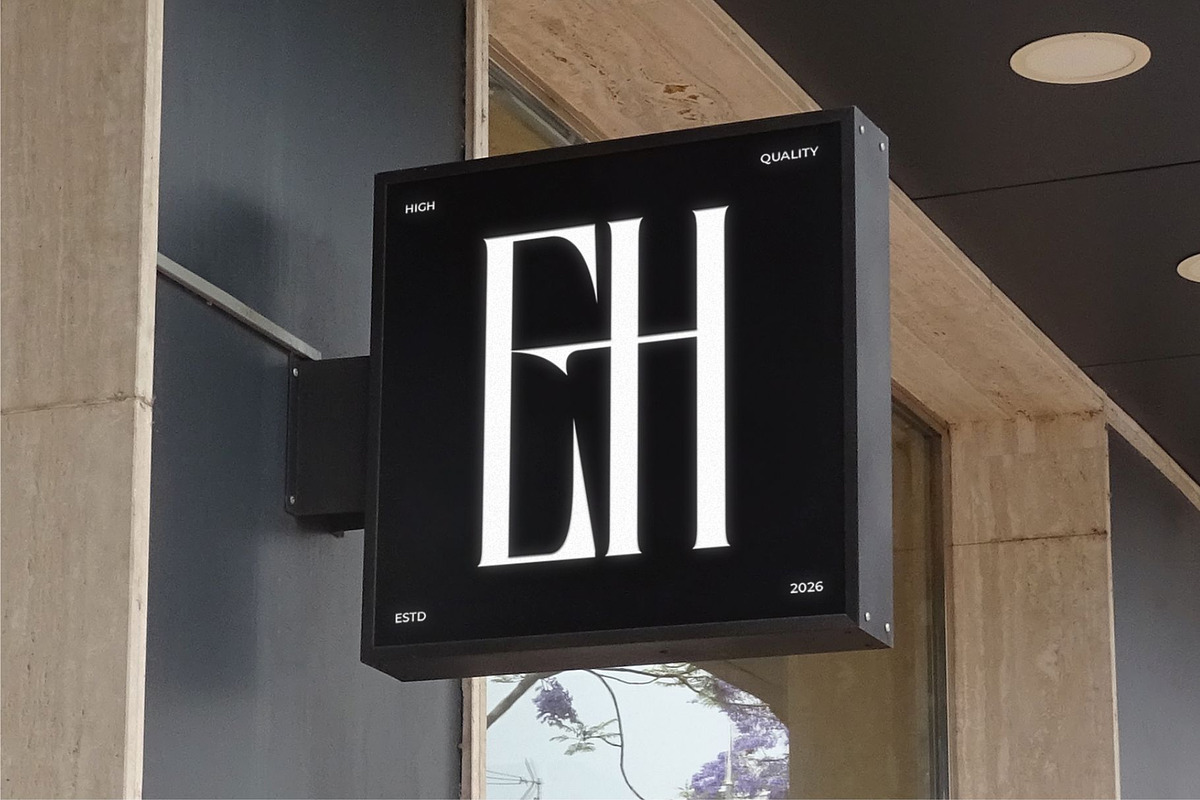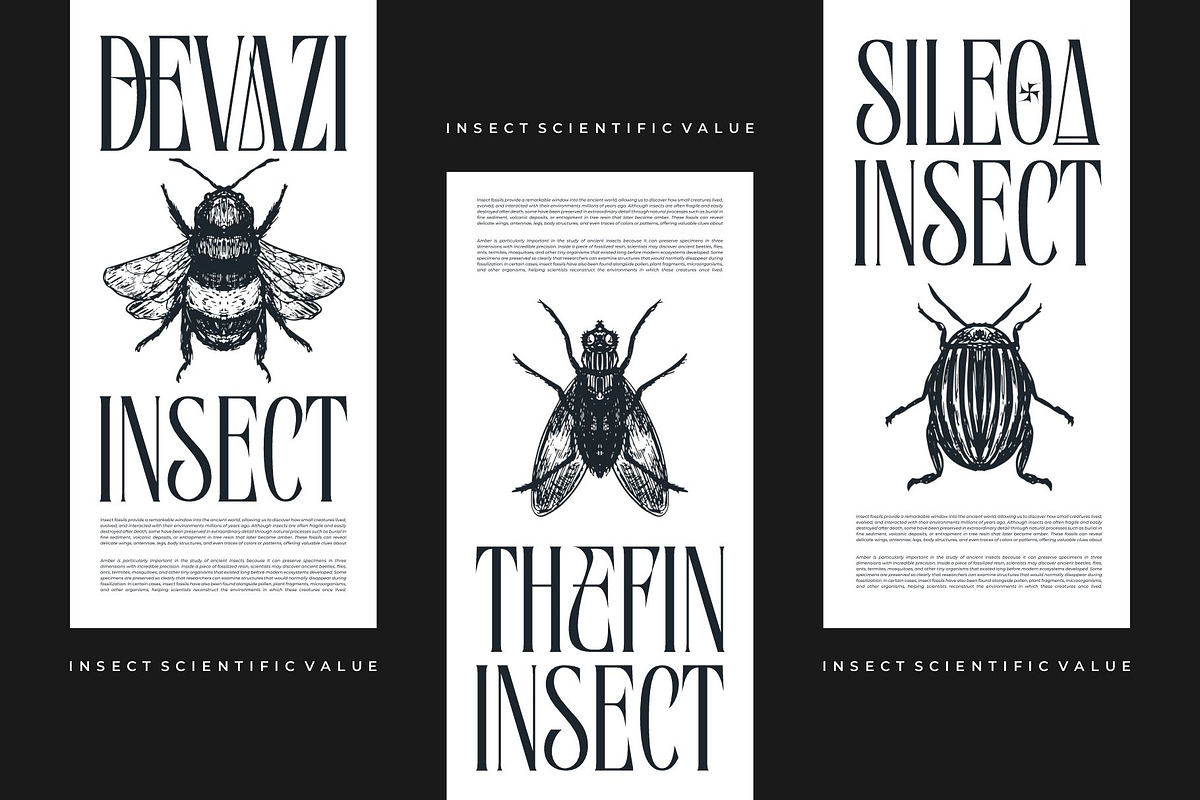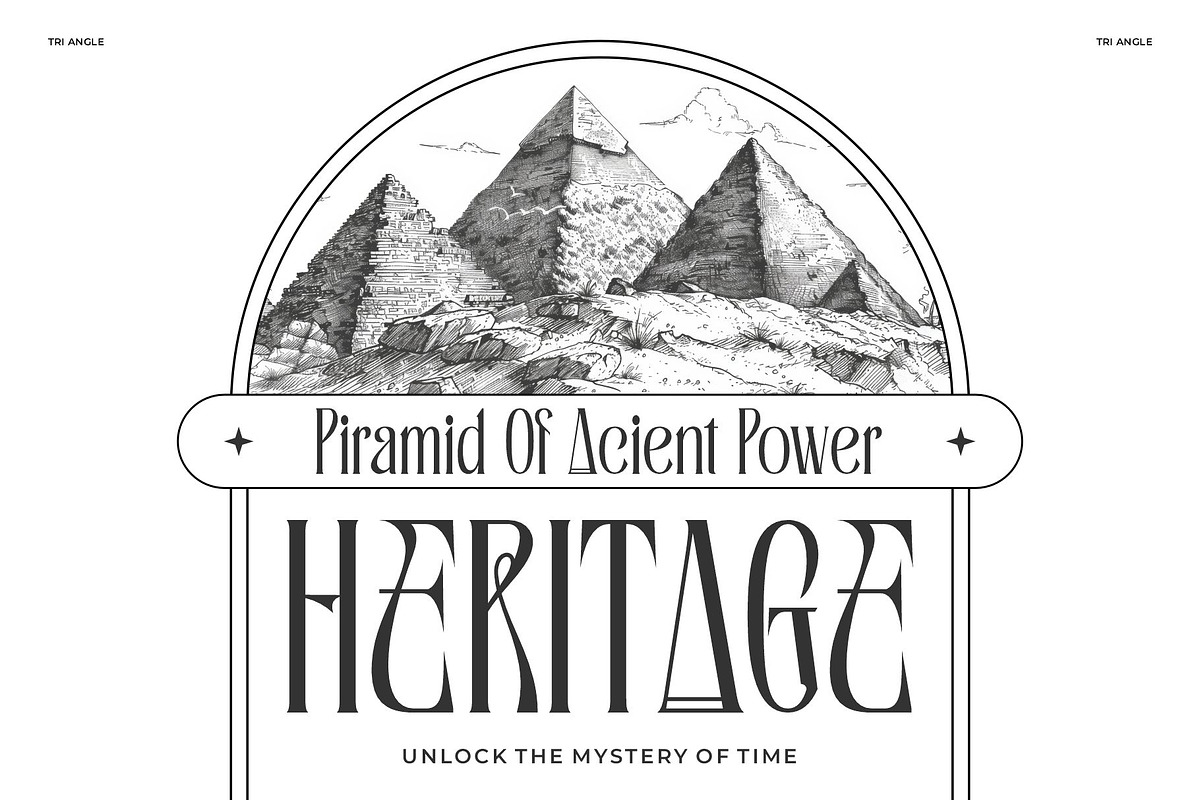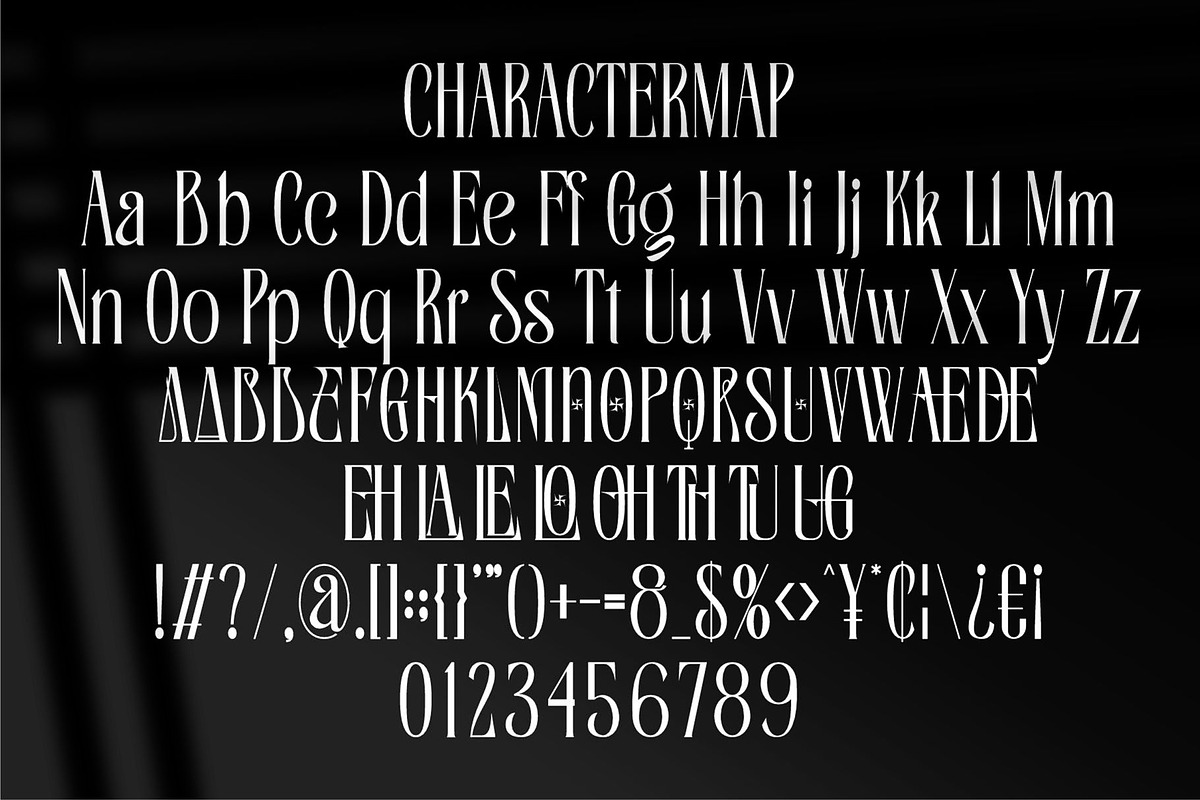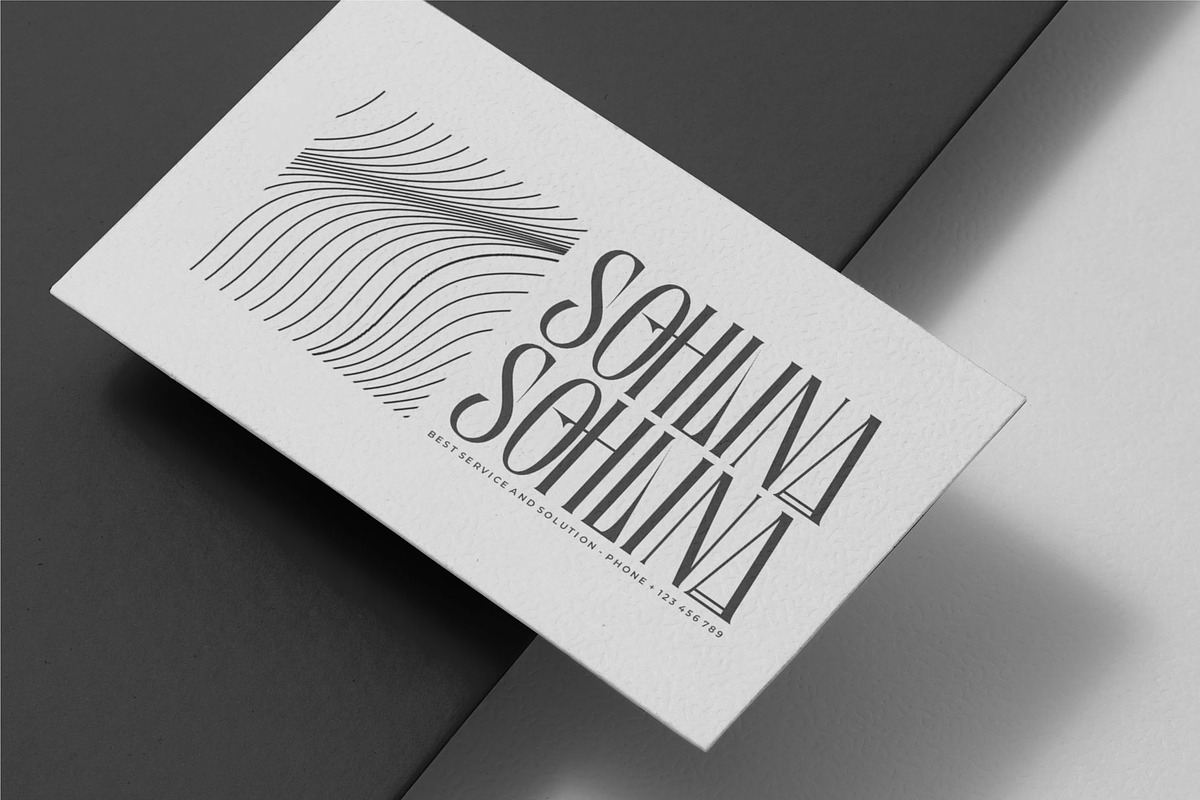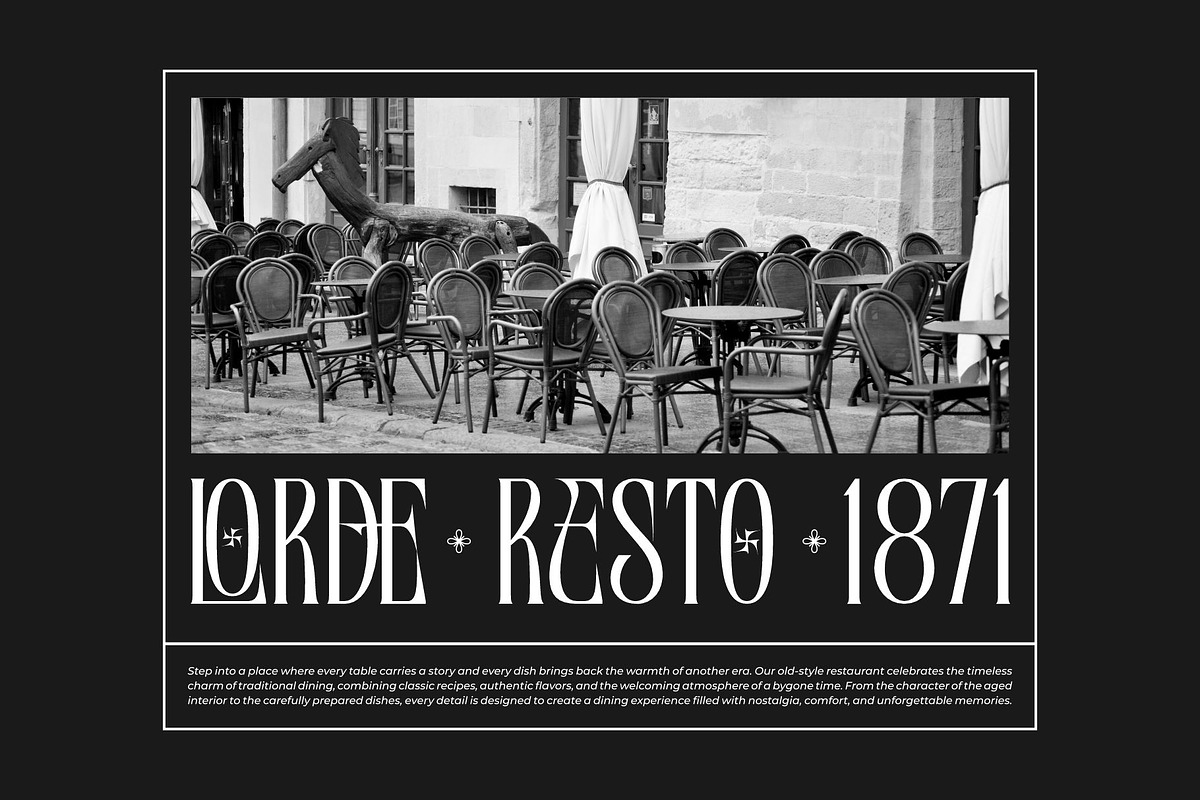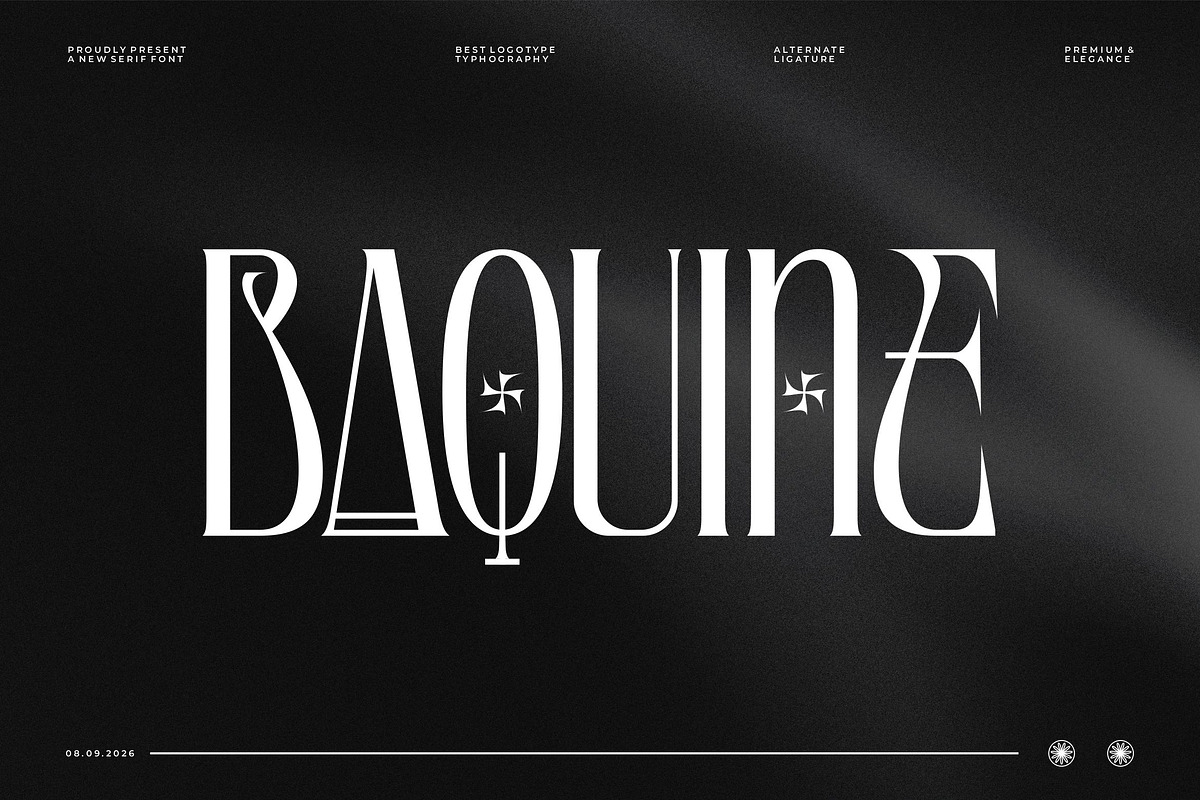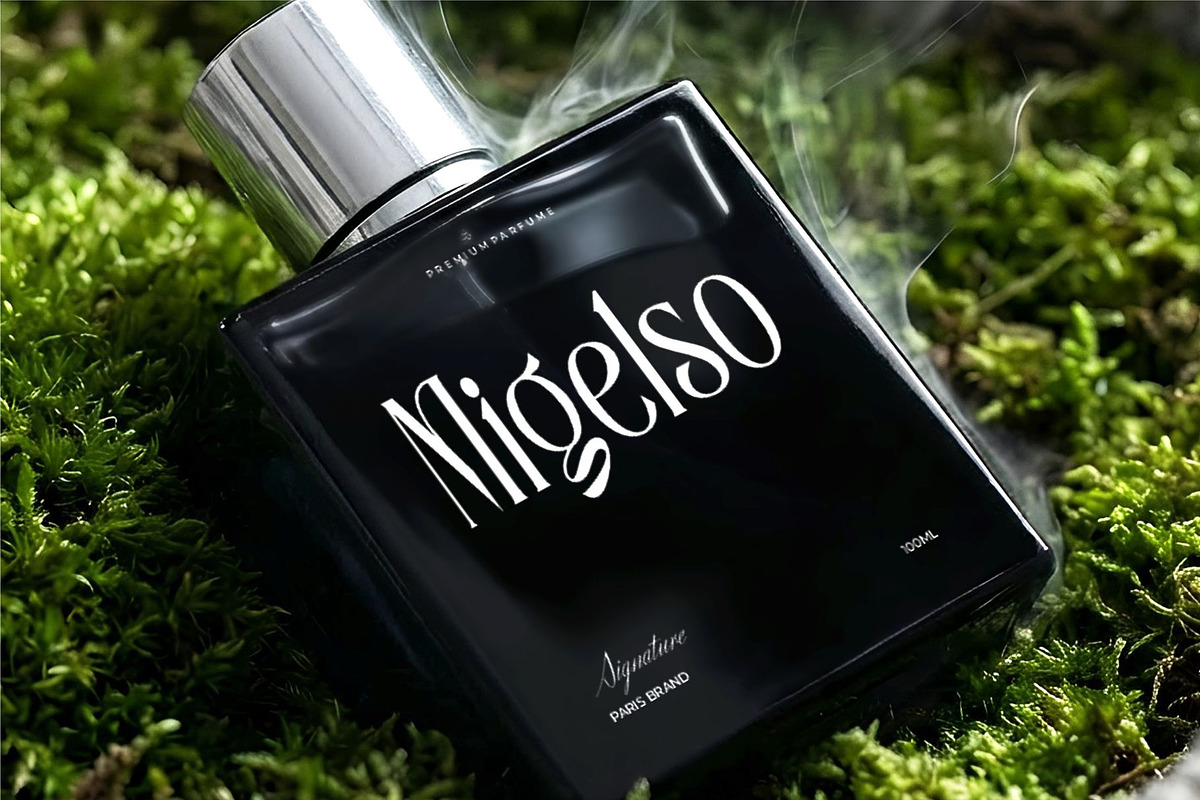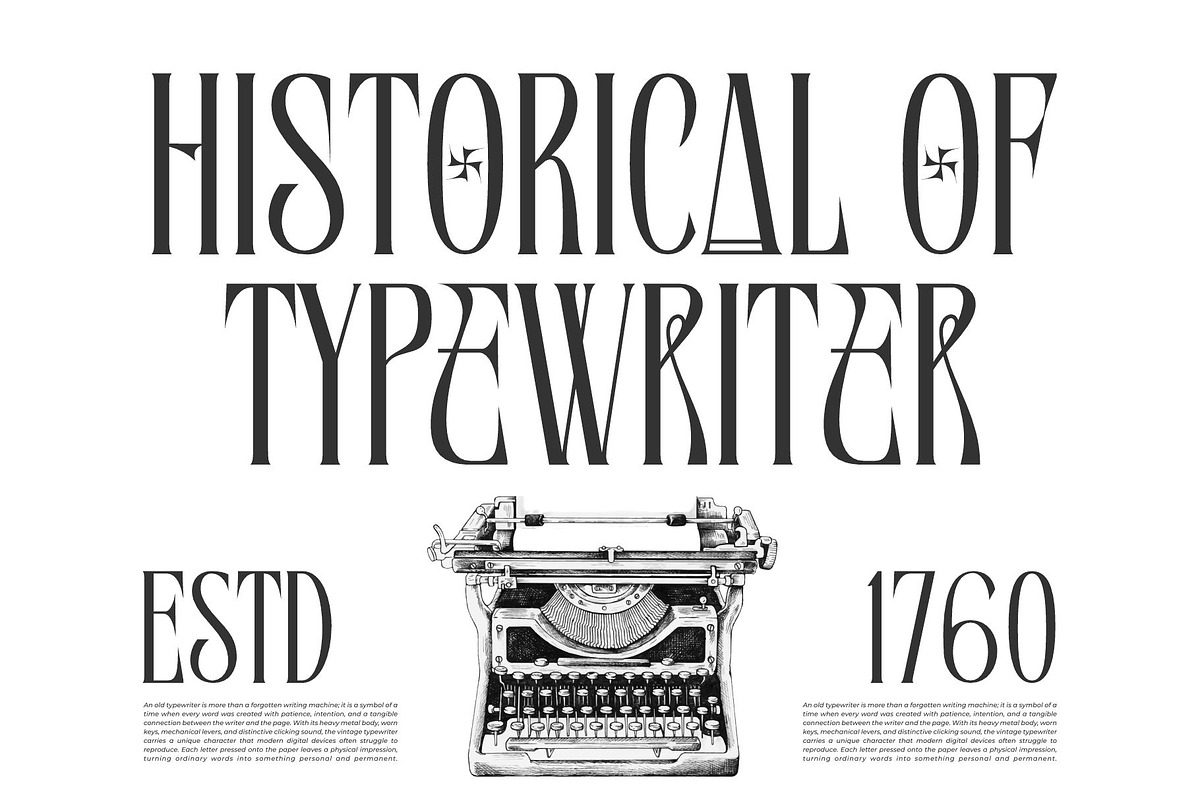
Baquine || Classy Serif Display Font
Introducing Baquine Serif display font—a perfect fusion of classic charm and modern allure. Ideal for branding and editorial projects, it effortlessly combines traditional serifs with a contemporary touch, radiating sophistication and uniqueness. Elevate your creativity with this timeless yet fresh typeface, where every character speaks of refined design.